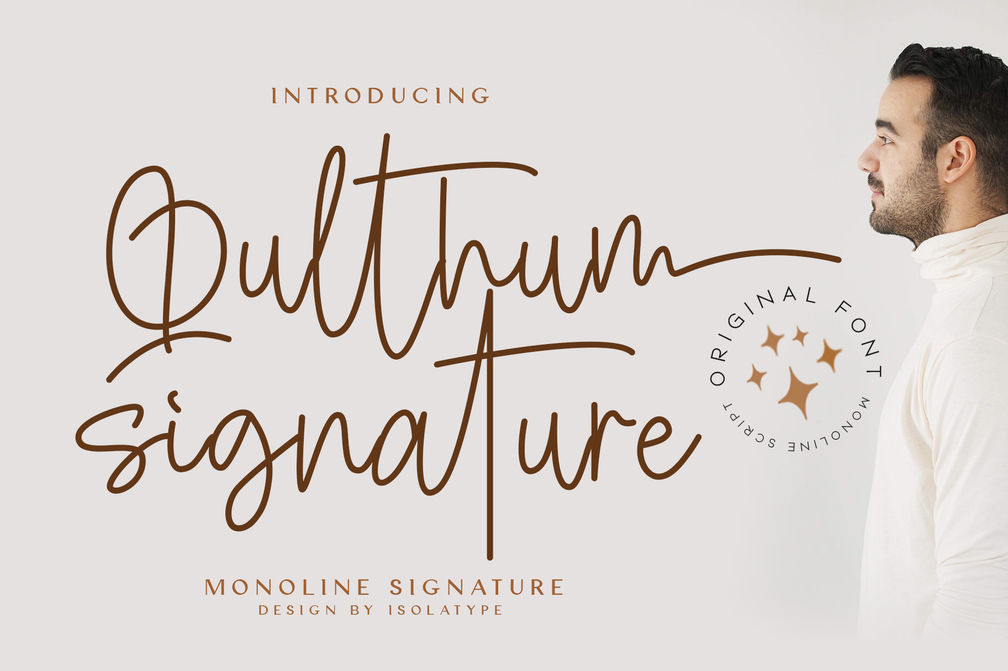
Qulthum Signature
Qulthum Signature is a flowing and thin lettered handwritten font. Trendy and stylish, this font will elevate each of your creations. Qulthum Signature is PUA encoded which means you can access all of the glyphs and swashes with ease!